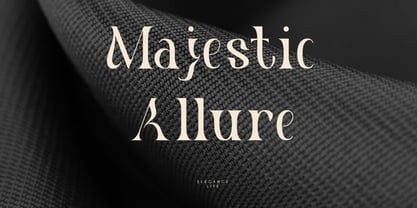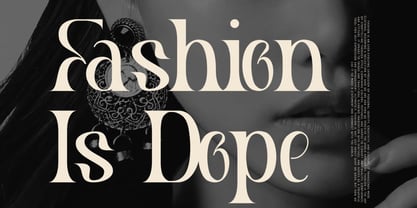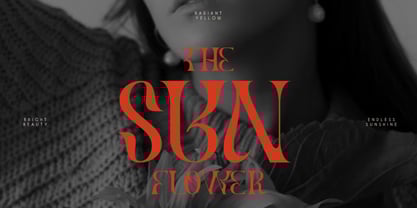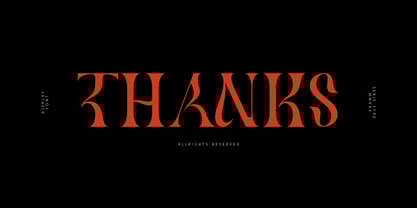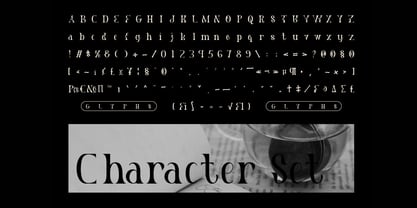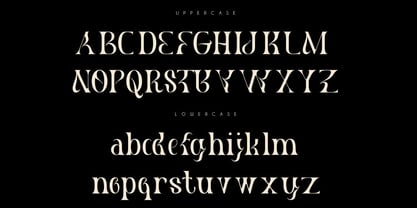
Lagtees
by Hasnat Studio
The Lagtees Font Family was designed by Hasnat Khan and published by Hasnat Studio. Lagtees contains 1 styles. More about this family
Lagtees is a refined serif typeface that beautifully blends classic elegance with modern readability. Featuring well-defined, angular serifs and a graceful balance of straight and curved strokes, this typeface exudes sophistication without being overly decorative. Perfect for luxury branding, editorial layouts, packaging, book titles, and professional logo designs, Lagtees delivers timeless beauty with contemporary clarity. Its clean structure and elegant presence make it a versatile choice for both print and digital projects. ✦ Features - Refined Serif Letterforms with modern detailing - Uppercase & Lowercase - Numbers & Punctuation - Excellent Readability & Versatility - Multilingual Support - Free Future Updates ✦ Perfect For - Logos & Branding - Editorial & Magazine Design - Luxury Product Packaging - Book Titles & Invitations - Web Design & Advertising Enhance your creative projects with Lagtees — a refined serif font that combines timeless sophistication and modern style, making it ideal for brands that value elegance and precision. This typeface is designed to elevate your visual identity, ensuring that your message is conveyed with clarity and grace across various applications.
Designers: Hasnat Khan
Foundry: Hasnat Studio